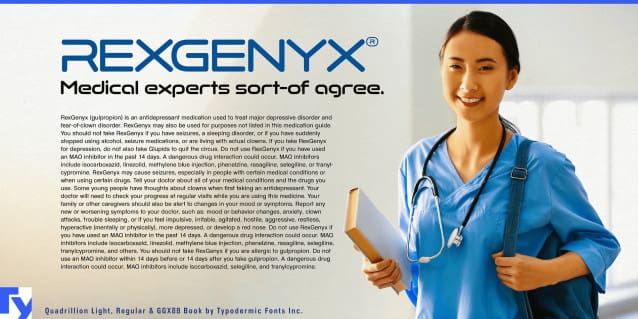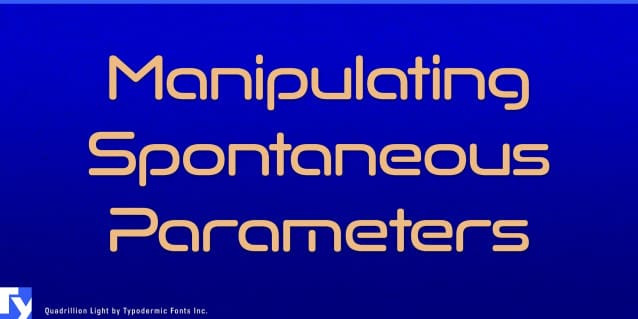
Quadrillion Font Family
Quadrillion Font Family,  With its wide, capsule-like design and futuristic aesthetic, Quadrillion is the perfect choice for designers who want to infuse their message with an otherworldly character.
Inspired by the capital letterforms of Ethnocentric, a popular headliner from 1999, Quadrillion is a techno typeface with a distinctly plastic presence. Its six weights and italics allow for a wide range of design options, making it the perfect choice for any project that requires a bold, modern look.